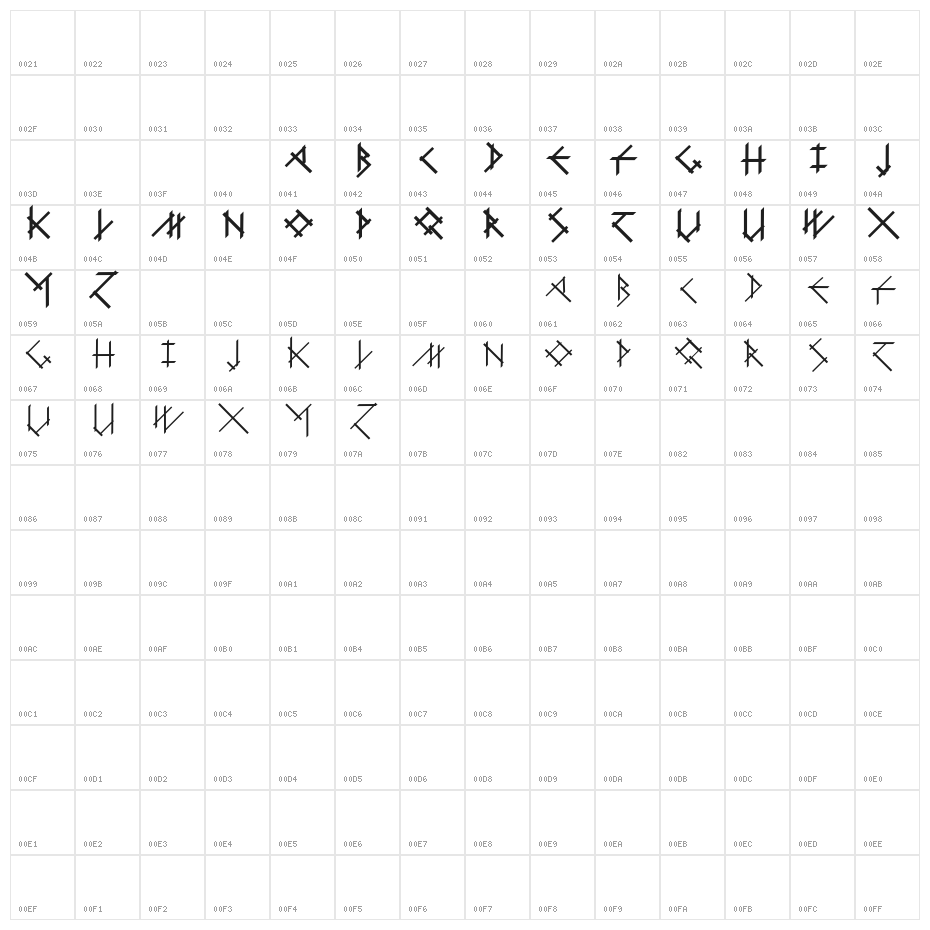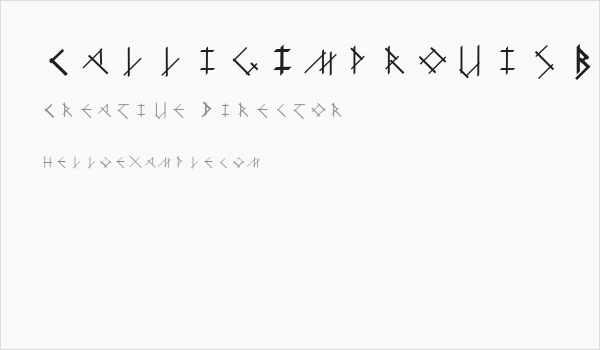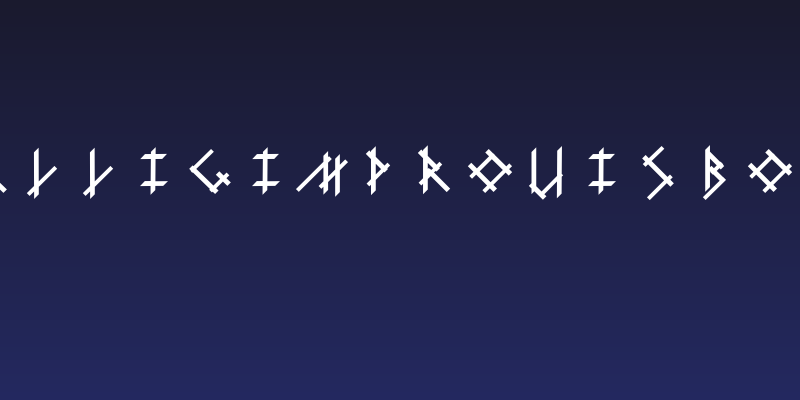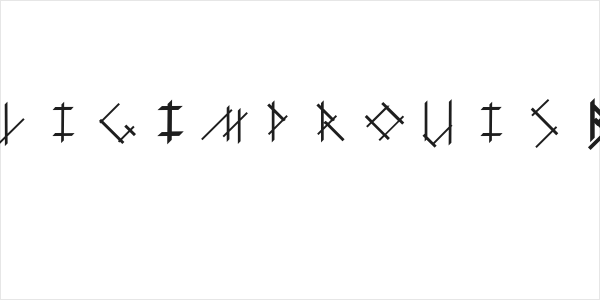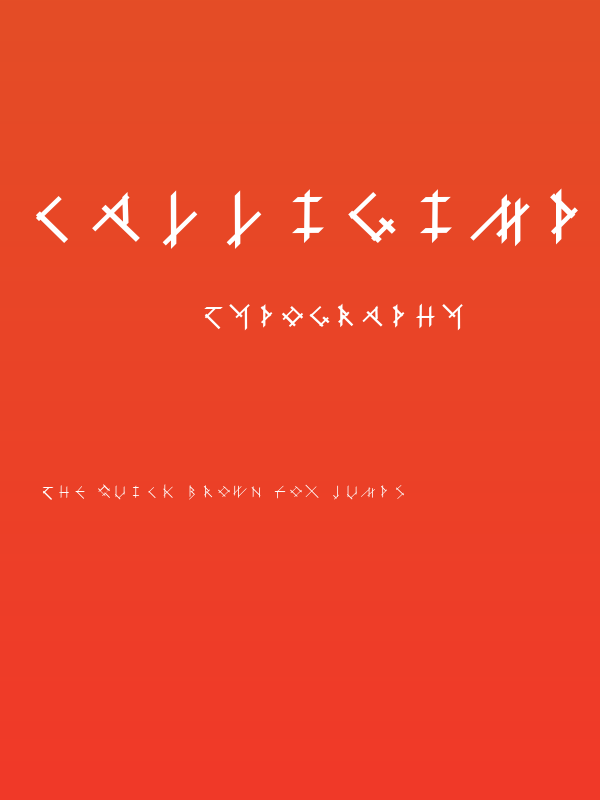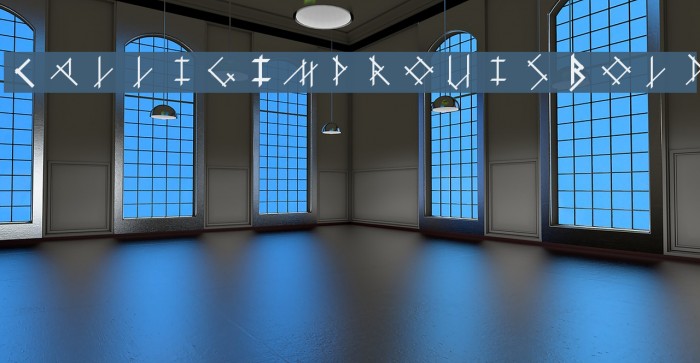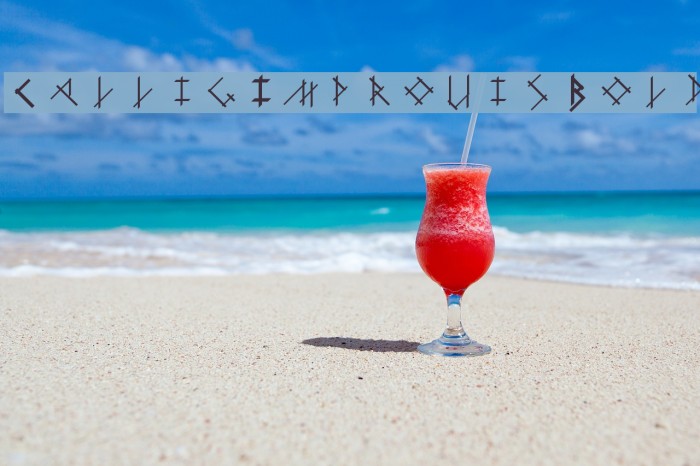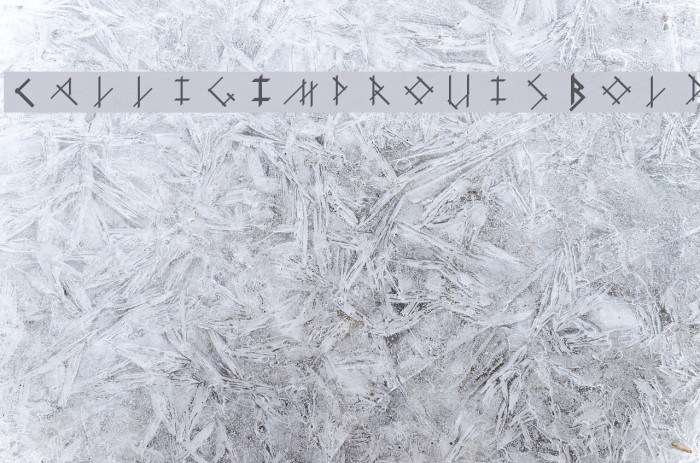
CalligImprovis-Bold Font
CalligImprovis-Bold Description
This font features a unique and intricate design, characterized by sharp angles and intersecting lines that create a sense of movement and complexity. The letters are formed with a series of strokes that often cross each other, giving the font a dynamic and somewhat chaotic appearance. Despite its complexity, the font maintains a consistent structure across all characters, ensuring readability. The uppercase and lowercase letters share a similar style, with the lowercase being slightly more condensed. The numbers and special characters follow the same design principles, integrating seamlessly with the alphabet. This font's distinctive style makes it stand out, ideal for projects that require a bold and artistic touch.